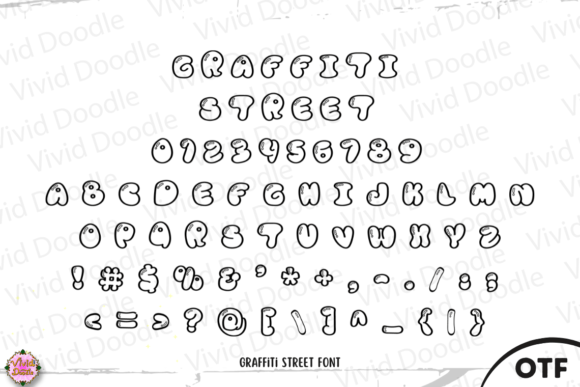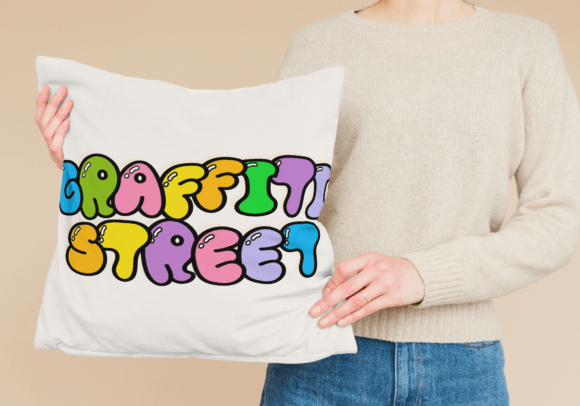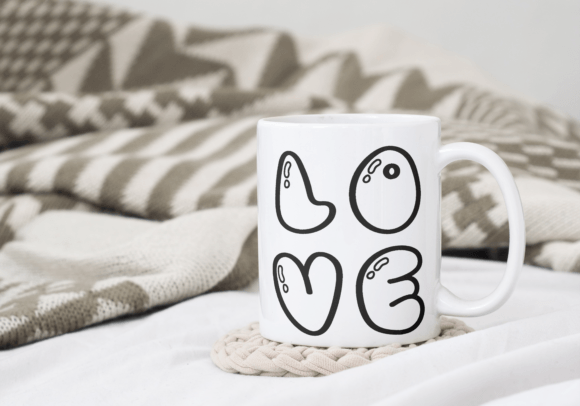
Unleash Your Creativity with Graffiti Street Font: The Ultimate Urban Typeface
Are you a designer, crafter, or DIY enthusiast looking to add a touch of urban flair to your projects? Look no further than Graffiti Street Font, a vibrant and dynamic typeface that embodies the spirit of street art. This versatile font features a cool bubble and balloon street texture, making it the perfect addition to any design that requires a dash of edginess and self-expression.
What is Graffiti Street Font?
Graffiti Street Font is a unique and expressive typeface that captures the essence of urban art. With its street art alphabet symbols and bold, colorful texture, this font is sure to elevate your designs and turn them into visually engaging experiences. Whether you’re working on a poster, a DIY craft, or any other creative project, Graffiti Street Font adds a touch of authenticity and urban cool that will set your work apart.
Key Features of Graffiti Street Font
- Street Art Alphabet Symbols: Graffiti Street Font features a comprehensive set of street art alphabet symbols that will add a touch of urban flair to your designs.
- Cool Bubble and Balloon Street Texture: The font’s unique texture, reminiscent of bubble and balloon graffiti, adds a playful and dynamic touch to your designs.
- Expressive and Edgy: Graffiti Street Font is designed to be bold and expressive, making it perfect for designs that require a dash of attitude and personality.
- Versatile: This font is suitable for a wide range of creative projects, from DIY crafts and posters to digital designs and more.
How to Use Graffiti Street Font in Your Designs
Graffiti Street Font is incredibly easy to use and can be incorporated into your designs in a variety of ways. Here are a few ideas to get you started:
- DIY Crafts: Add a touch of urban flair to your DIY crafts, such as handmade cards, gift tags, and decorations.
- Posters and Flyers: Use Graffiti Street Font to create eye-catching posters and flyers for events, promotions, and more.
- Digital Designs: Incorporate Graffiti Street Font into your digital designs, such as social media graphics, blog posts, and website headers.
- Street Art-Inspired Projects: Use Graffiti Street Font to create street art-inspired projects, such as murals, stencils, and other urban art pieces.
Benefits of Using Graffiti Street Font
Graffiti Street Font offers a range of benefits for designers and crafters, including:
- Unique and Authentic: Graffiti Street Font provides a unique and authentic way to add urban flair to your designs.
- Easy to Use: The font is incredibly easy to use and can be incorporated into your designs in a matter of minutes.
- Versatile: Graffiti Street Font is suitable for a wide range of creative projects, making it a valuable addition to your design toolkit.
- Expressive and Edgy: The font’s bold and expressive design makes it perfect for designs that require a dash of attitude and personality.
Graffiti Street Font is a vibrant and dynamic typeface that is sure to elevate your designs and add a touch of urban flair. With its street art alphabet symbols, cool bubble and balloon street texture, and expressive and edgy design, this font is perfect for designers and crafters looking to create visually engaging and authentically street-inspired experiences. So why wait? Download Graffiti Street Font today and unleash your creativity!